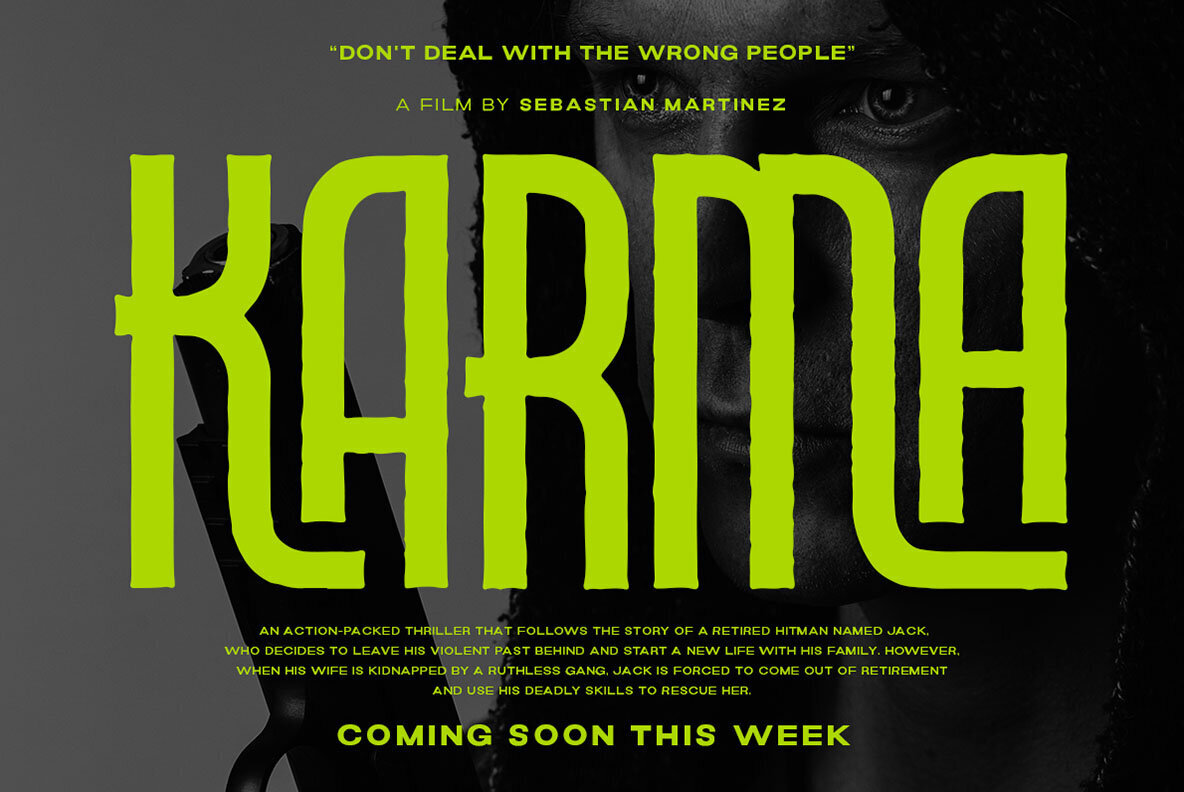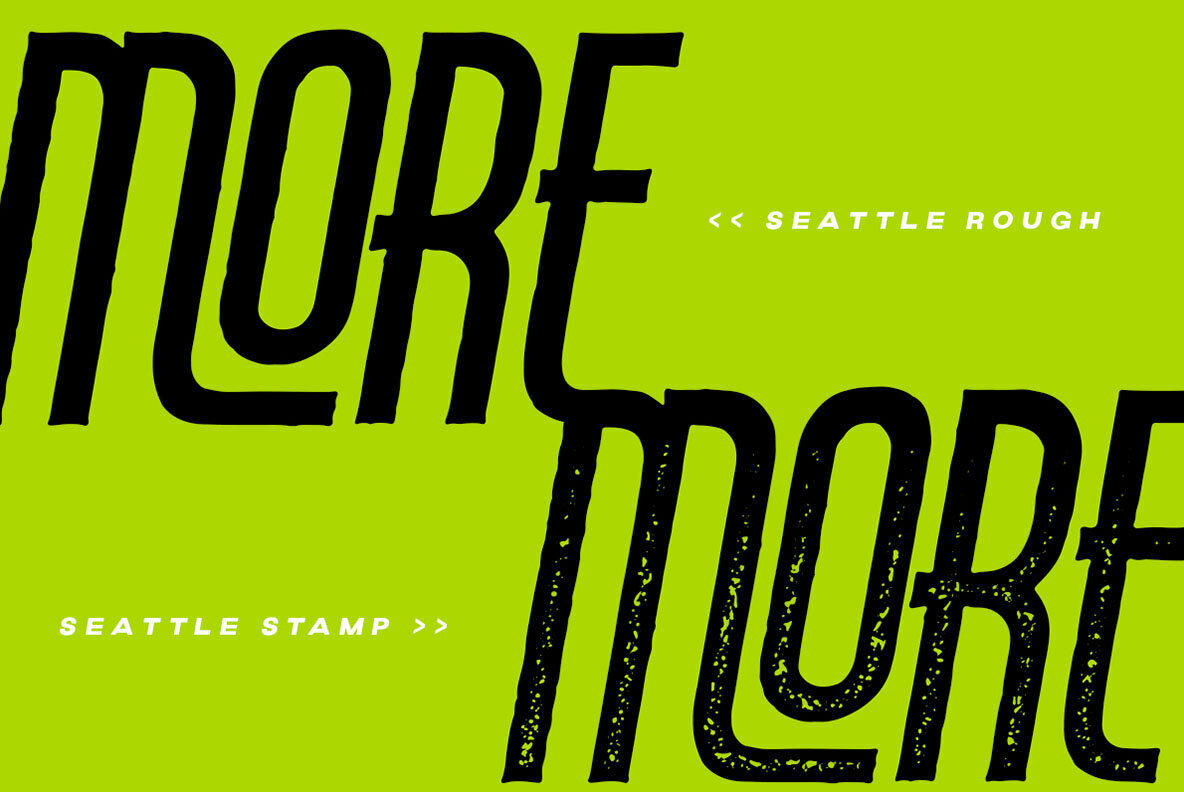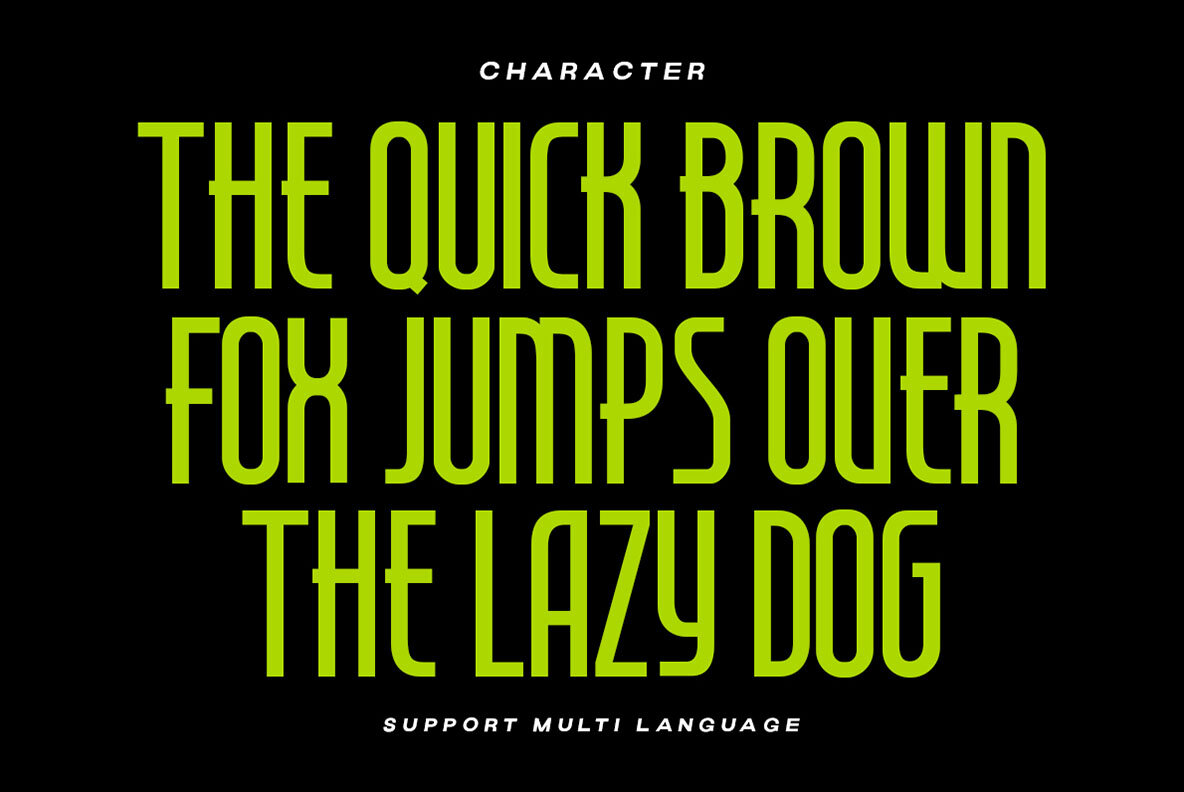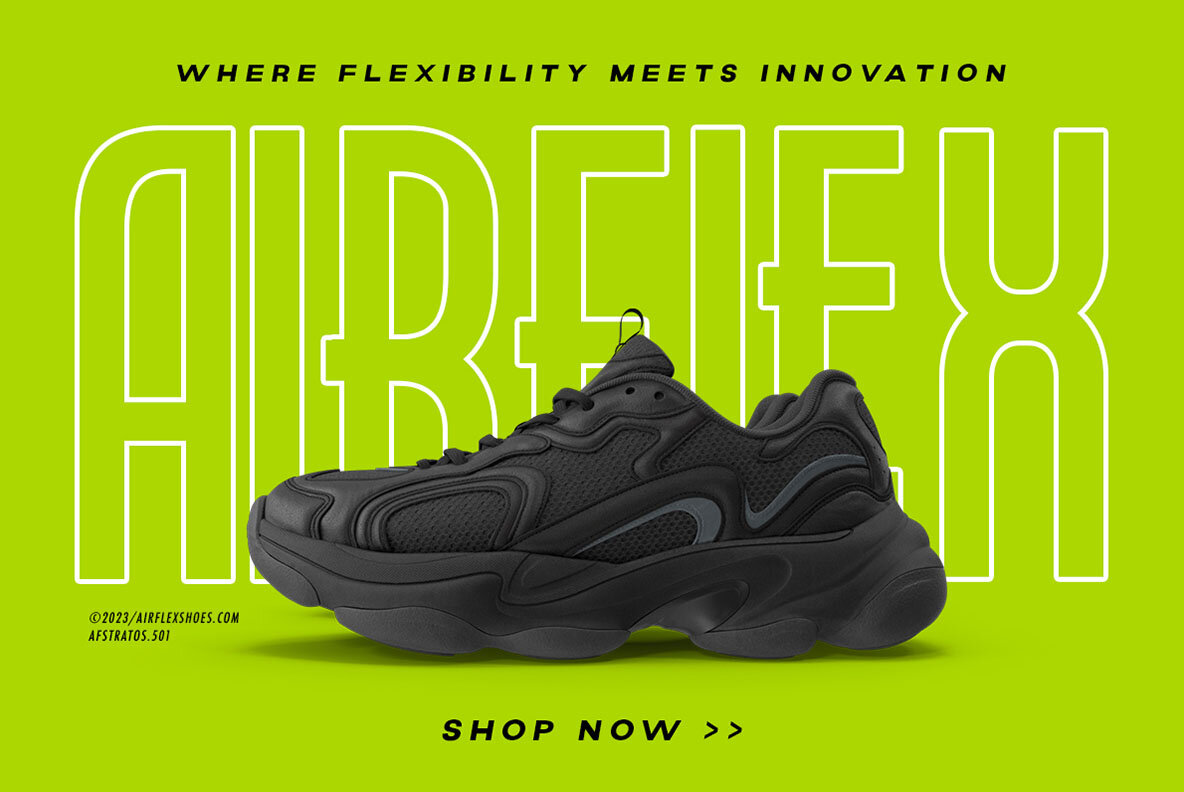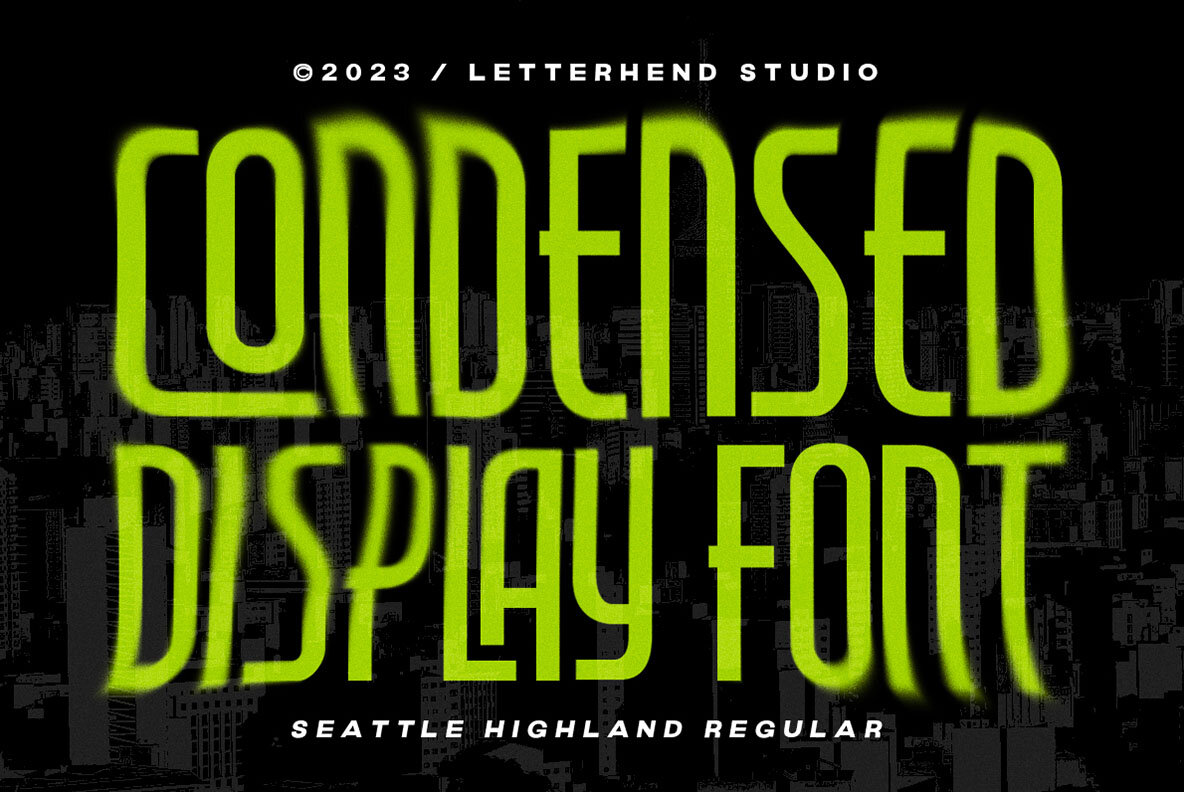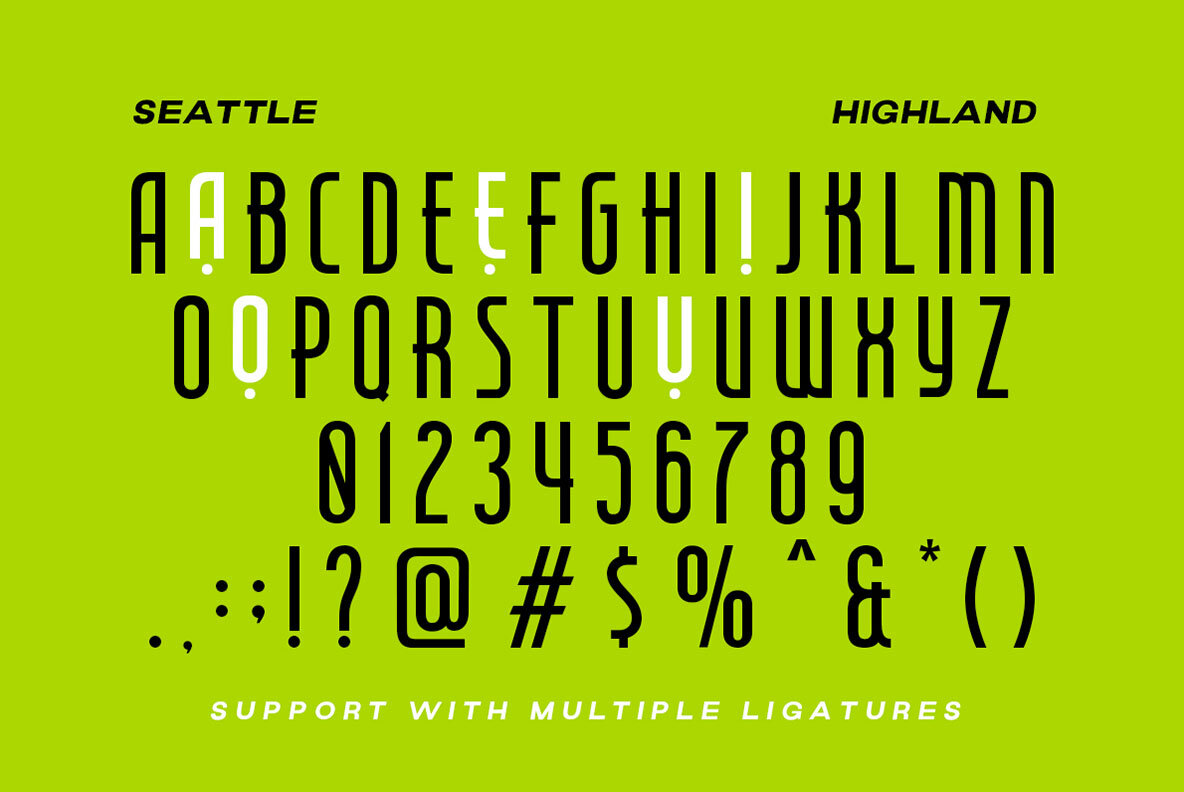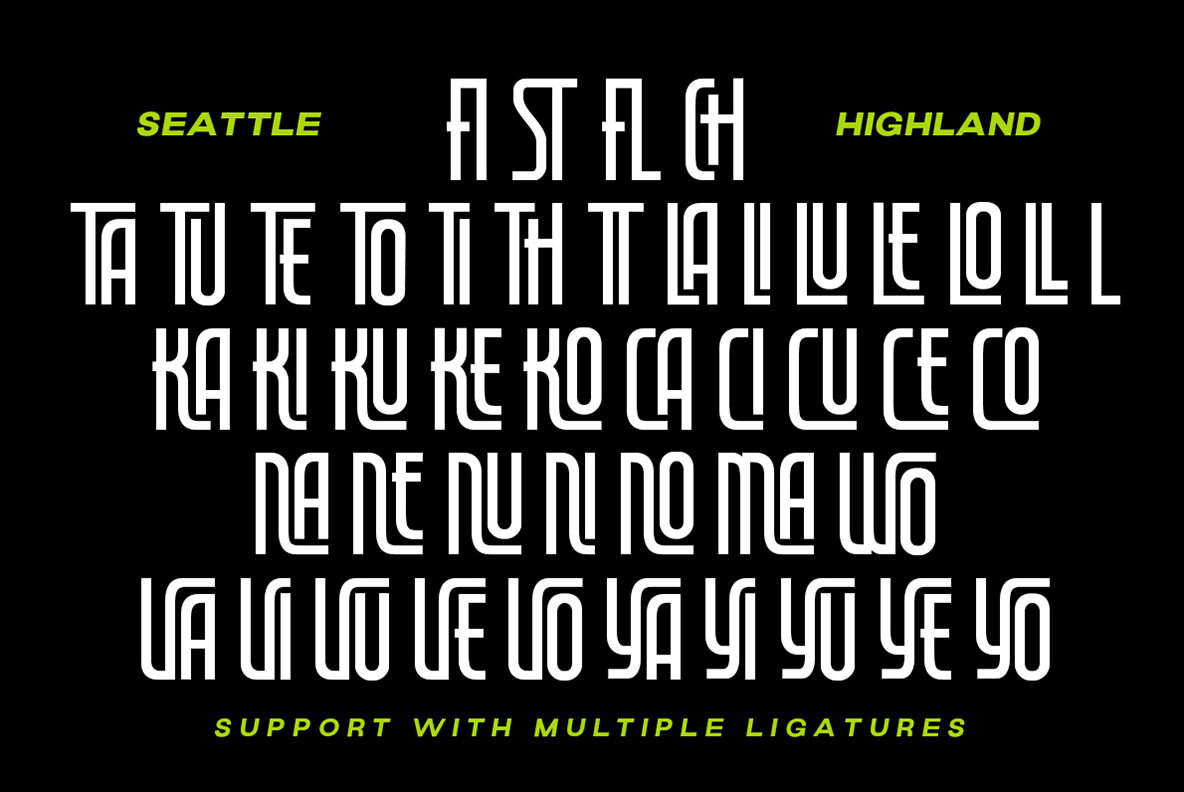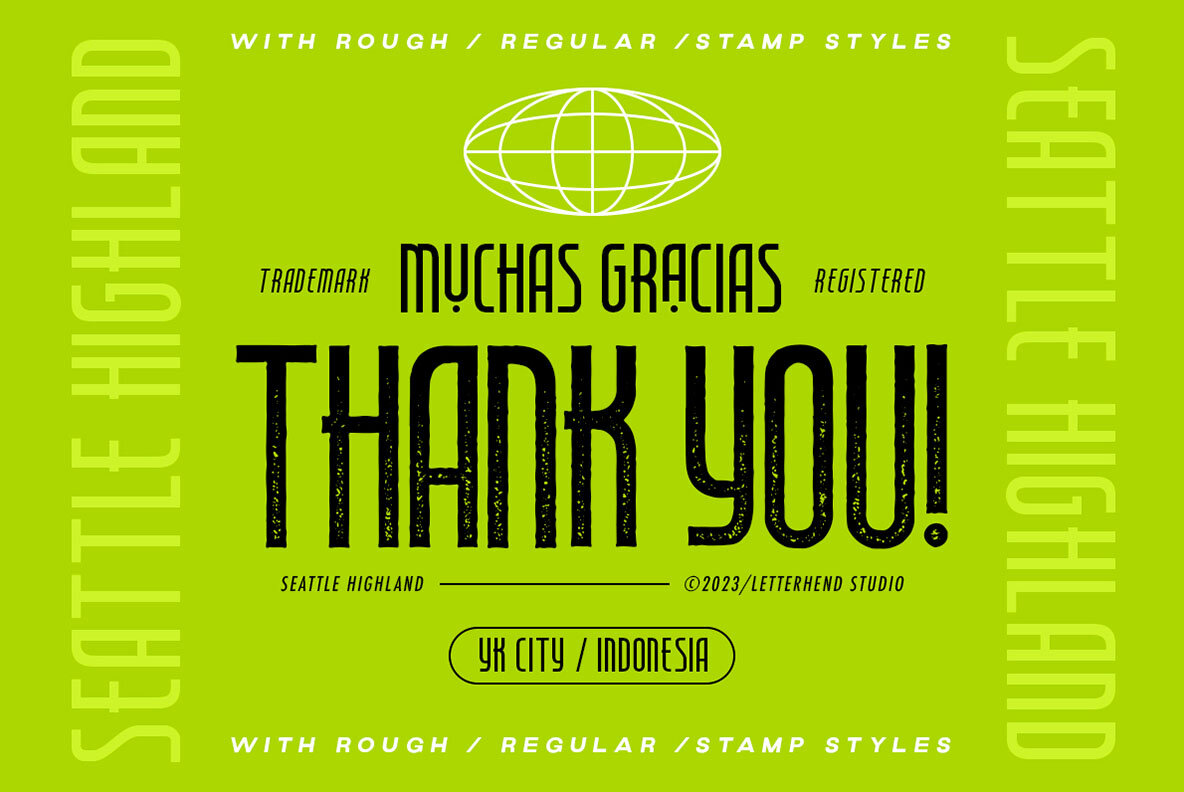
Seattle Highland Font
Introducing, The epitome of modernity in this extras condensed display font, Seattle Highland. With its clean and crisp appearance, it exudes a sense of modernity and sophistication . It comes with unique rough and stamp style, add a touch of ruggedness, making it a font that effortlessly bridges the gap between cool and contemporary. This font adds a unique touch to any design project. From logos to posters, Seattle Highland is the perfect choice for applications that require a fresh and contemporary look. Features: